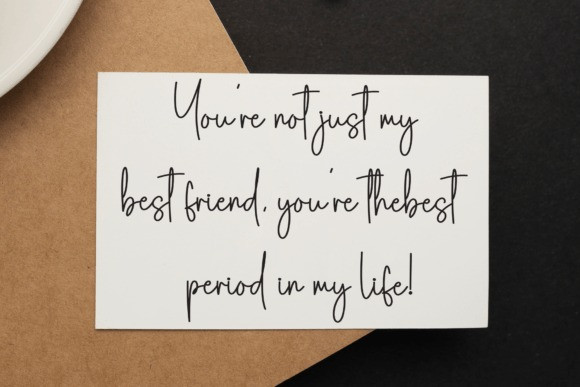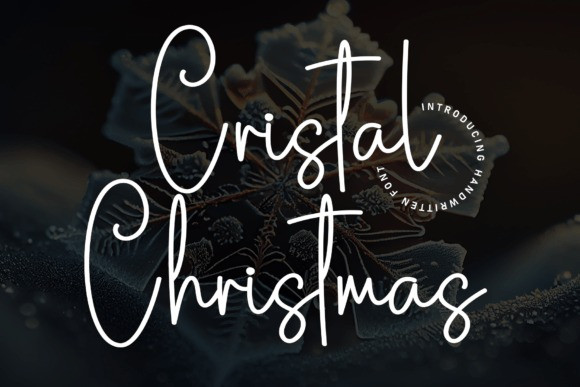
Cristal Christmas Font
Cristal Christmas Font is a stylish and incredibly elegant script font. It looks stunning on wedding invitations, thank you cards, quotes, greeting cards, logos, business cards and every other design which needs a handwritten touch.